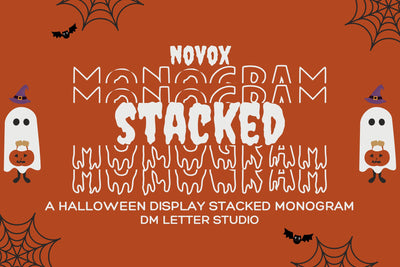
Novox Ghost Stacked Monogram
Novox Ghost Stacked Monogram – A Spooky Layered Letter Font
Novox Ghost Stacked Monogram brings an eerie twist to traditional monograms with bold, layered letters haunted by spectral flair. Designed for those who love spooky aesthetics with a structured, symmetrical style, this font is ideal for Halloween crafts, haunted house décor, creepy mugs, or ghost-themed monogrammed gifts. The stacked format gives each letter combination a unique, blocky presence that still feels ghostly and fun.
Spooky Stacked Monogram Style: Layered ghostly letters arranged vertically for a dramatic and haunting visual effect.
Bold & Chilling Aesthetic: Strong yet spectral—great for grabbing attention without losing the spooky vibe.